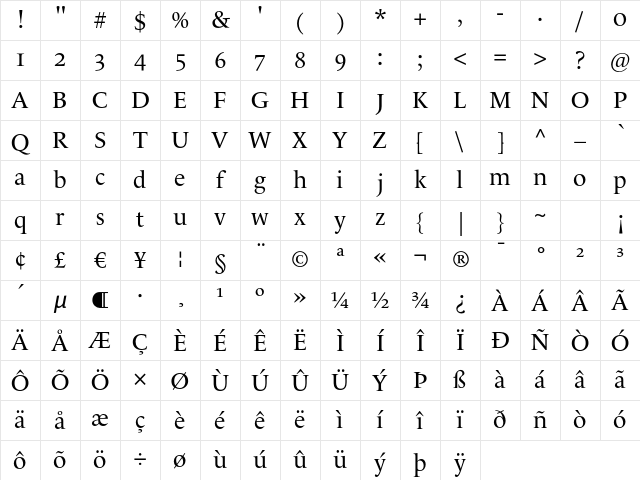
LeMondeLivre carries the refined structure of traditional serif typography, with bracketed terminals and considered proportions that communicate credibility and craft.
Pro Tip: Use LeMondeLivre for editorial body copy and considered headline work. Pair with a neutral sans for UI elements or captions to create a classic hierarchy.